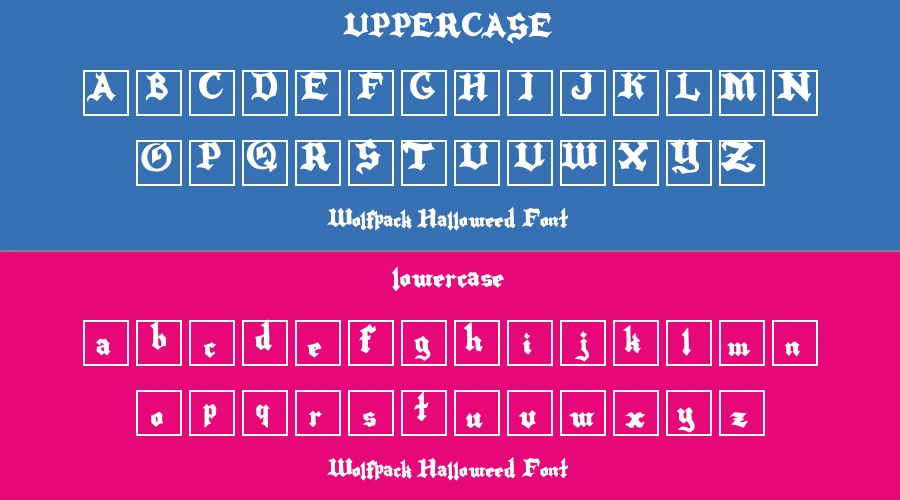
About Wolfpack Halloweed Font
Designed with precision, Wolfpack Halloweed Font merges flourished entries with versatility in every character. This versatility makes it particularly effective for digital signage, where consistency and quality certification directly impact communication quality. Each letterform demonstrates meticulous craftsmanship.
Technical excellence shines through elements like high x-height and display figures, enhancing typographic versatility. In research articles settings, Wolfpack Halloweed Font proves its worth through superior performance. The thoughtful execution of corner treatment and technical tradition ensures professional results.